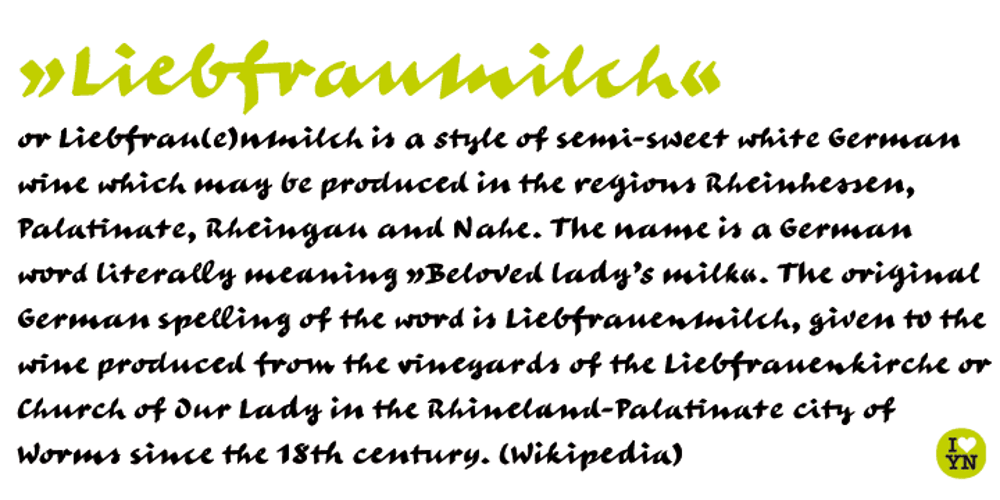
Liebfraumilch Font Family was designed by Jan Gerner and published by Yanone. Liebfraumilch contains 1 styles and family package options. Liebfraumilch is a vivid handwriting script that relies on the OpenType features Contextual Alternates, Discretionary Ligatures and Stylistic Alternates, which are available only in OpenType-aware applications such as the Adobe Creative Suite or Quark Xpress. Liebfraumilch or Liebfrau(en)milch is a style of semi-sweet white German wine which may be produced in the regions Rheinhessen, Palatinate, Rheingau and Nahe. The name is a German word literally meaning “Beloved lady’s milk”. The original German spelling of the word is Liebfrauenmilch, given to the wine produced from the vineyards of the Liebfrauenkirche or Church of Our Lady in the Rhineland-Palatinate city of Worms since the 18th century. The spelling Liebfraumilch is more common on labels of exported wine. (Wikipedia)